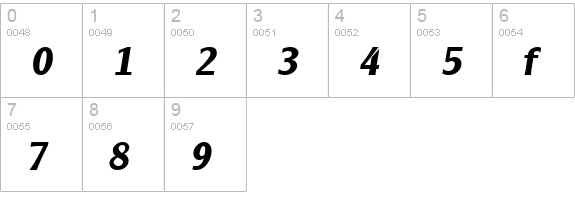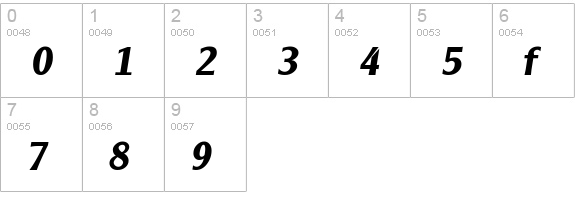
Clearly Gothic Bold Italic is a strong, high-contrast, italic variant in the Clearly typeface family \xE2\x80\x94 well suited to headlines, attention-grabbing titles, and strong calls-to-action.
Clearly Gothic Bold Italic is a striking and modern typeface that embodies a perfect blend of clarity and sophistication. Its bold and italic design exudes a sense of strength and elegance, making it an ideal choice for adding a touch of drama to any design project. The sharp, clean lines of this font give it a distinctly Gothic feel, while the italicized slant adds a sense of dynamism and movement. This versatile font is perfect for creating eye-catching headlines, striking logos, or bold statements in your designs. Whether you're designing a poster, website, or branding materials, Clearly Gothic Bold Italic will make a bold statement and leave a lasting impression. The best part is that Clearly Gothic Bold Italic is available for free download at FontsMarket.com. This means you can easily access this stunning font and incorporate it into your projects without any hassle. Don't miss out on the opportunity to enhance your designs with the bold and expressive style of Clearly Gothic Bold Italic - download it now and let your creativity shine!